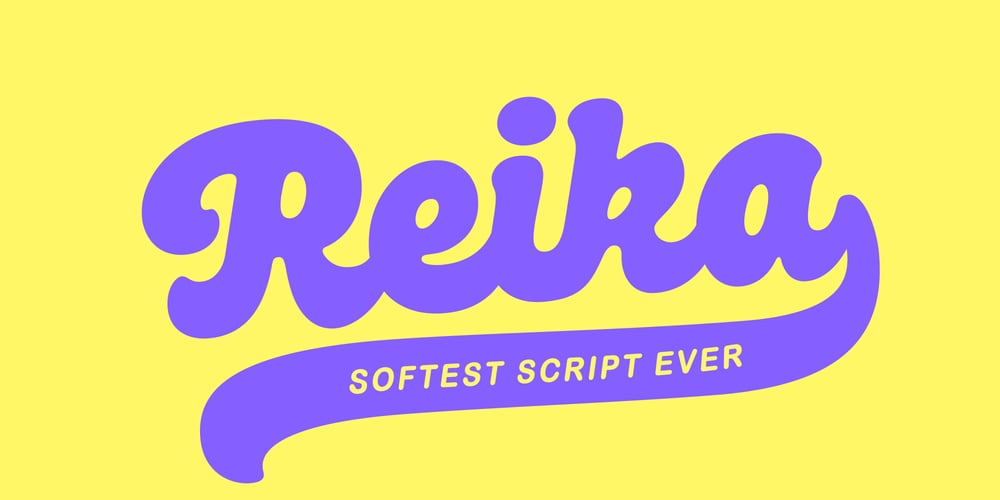
Reika
Reika font
Reika Font Family was designed by Andrey Sharonov and published by Andrey Sharonov. Reika contains 1 styles and family package options. Reika is a super soft and positive script inspired by the summer funny mood, simple street food and fresh drinks. It’s all about smiles, delicious, not too serious time spending with family or friends.Reika looking smooth thanks to 95 ligatures like an ak ch ck th in im ax ux and many others. Script includes Stylistic Alternates of some Uppercase and Lowercase and 12 lengths of End-Swashes (tales).You can use this font for example in logo and package design, in food business, kids and confectionery products.Reika support Western European characters and works with following languages: English, Danish, Dutch, Estonian, Faroese, Filipino, Finnish, French, German, Hungarian, Icelandic, Irish, Italian, Norwegian, Polish, Portuguese, Spanish, Swedish, Turkish.Quick combinations for Opentype features:Alternates – just add «2»End-letter – just add «underscore»End-swashes (tails) – just add -1, -2, -3…up to -12, where number is length of tail.This combinations works only with activated Standard Ligatures option in Opentype panel (Adobe Illustrator / Photoshop).